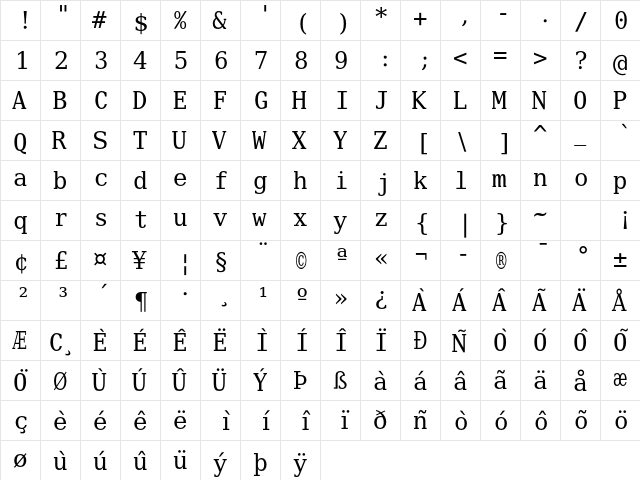
Verily Serif Mono Book
Design Context for Verily Serif Mono Typeface
Verily Serif Mono uses fixed-width spacing throughout, giving it the structured, systematic character associated with coding environments and technical documentation.
Well-suited to data-driven dashboards, coding tutorials, and any design that wants to reference the world of programming.
Pro Tip: Use Verily Serif Mono with slightly increased line-height for extended reading — fixed-width spacing can feel dense in longer passages without extra breathing room.